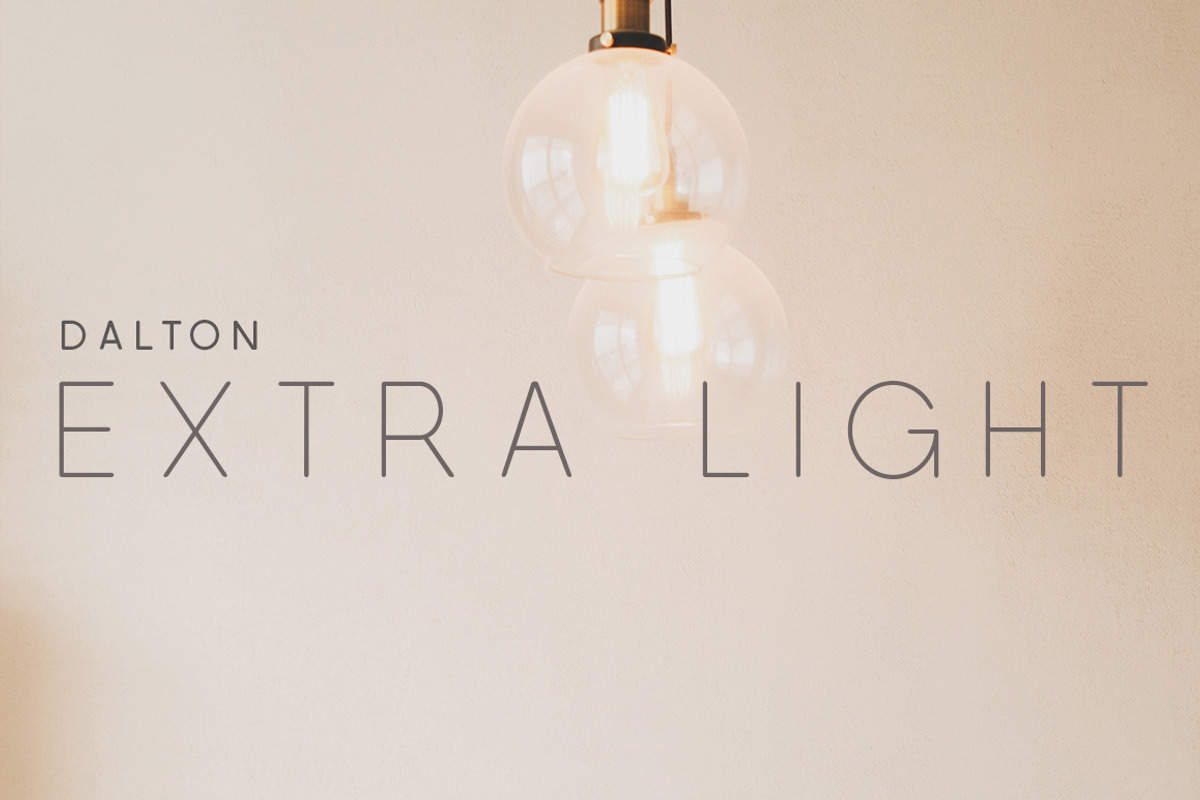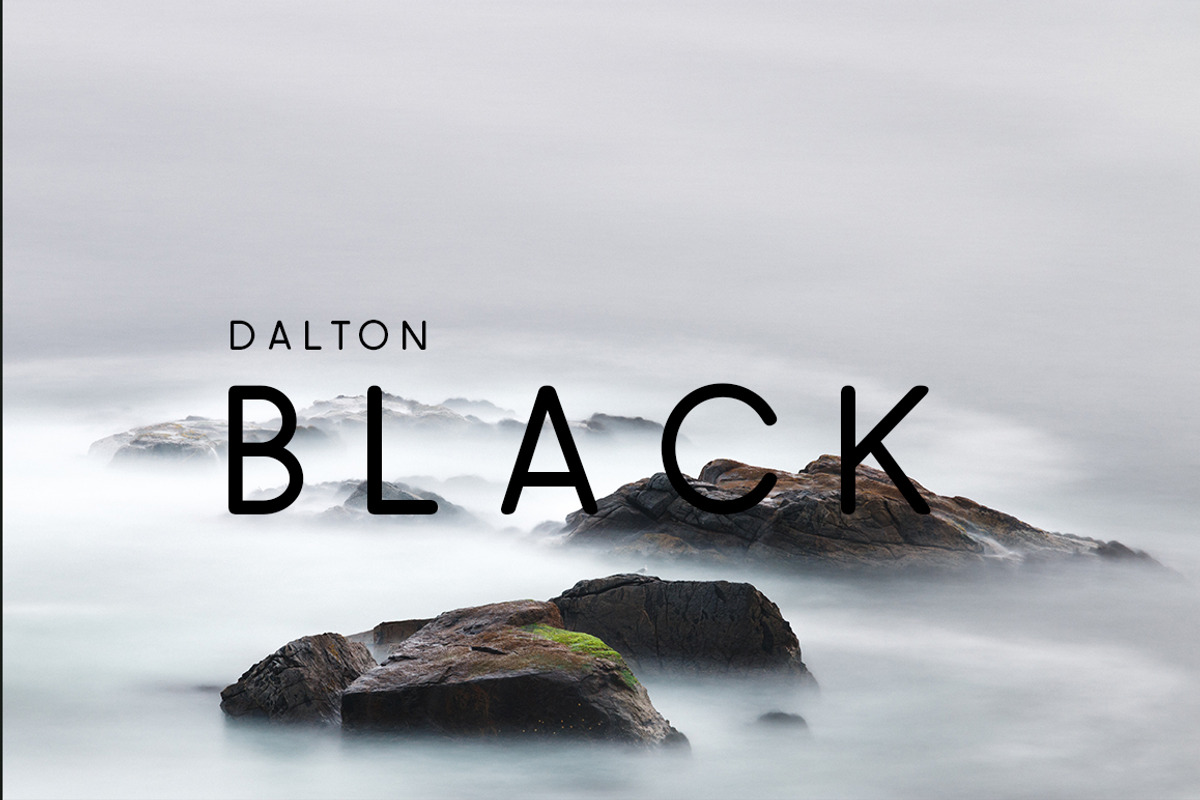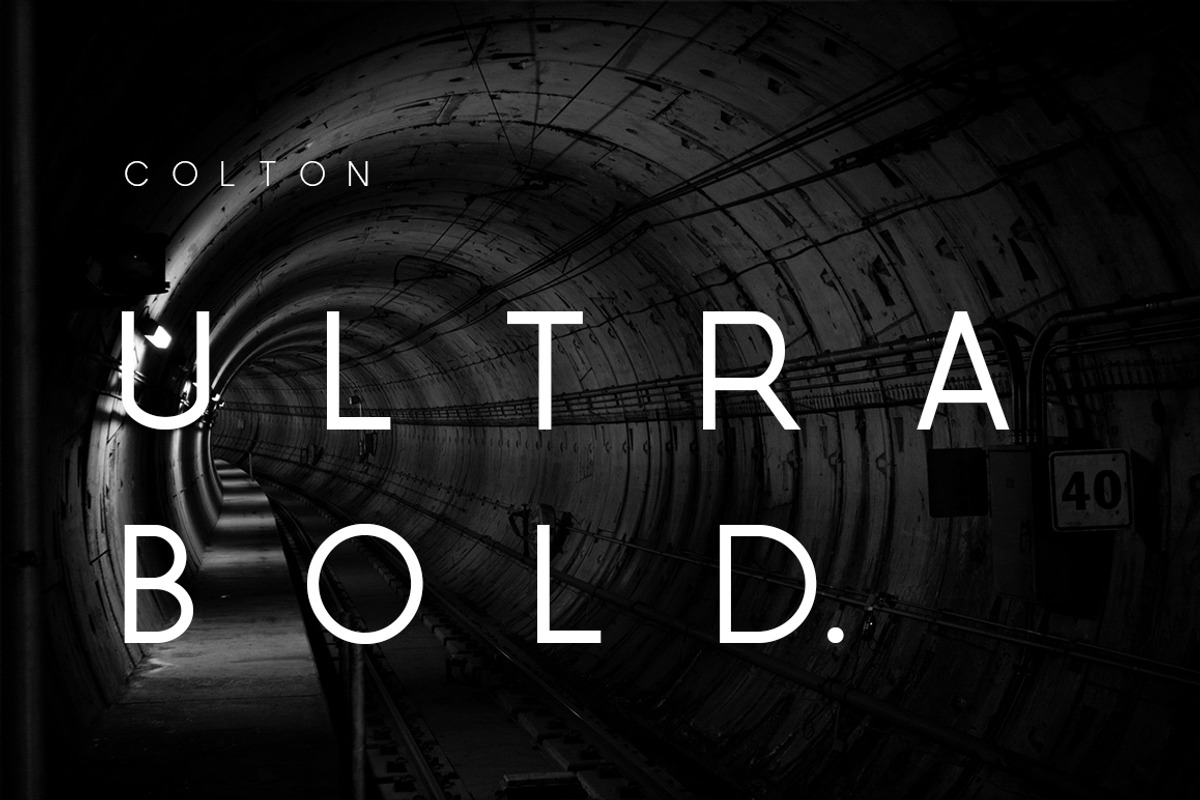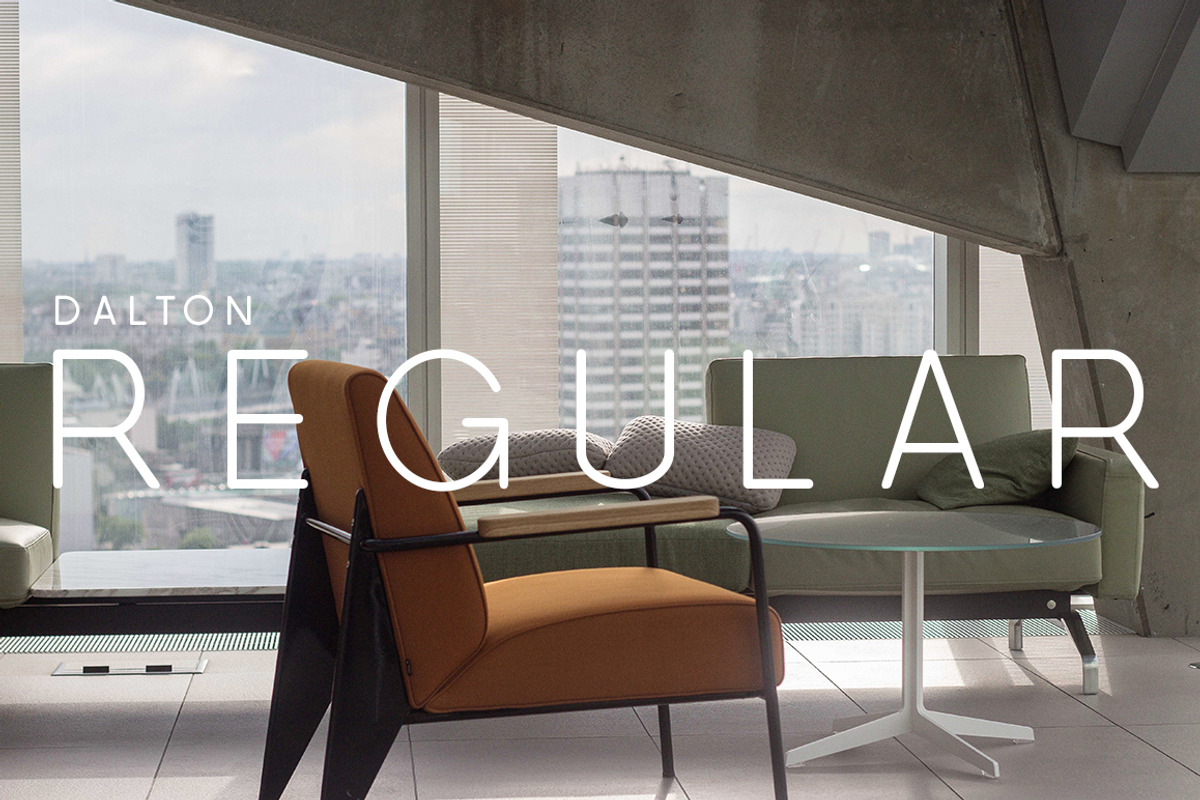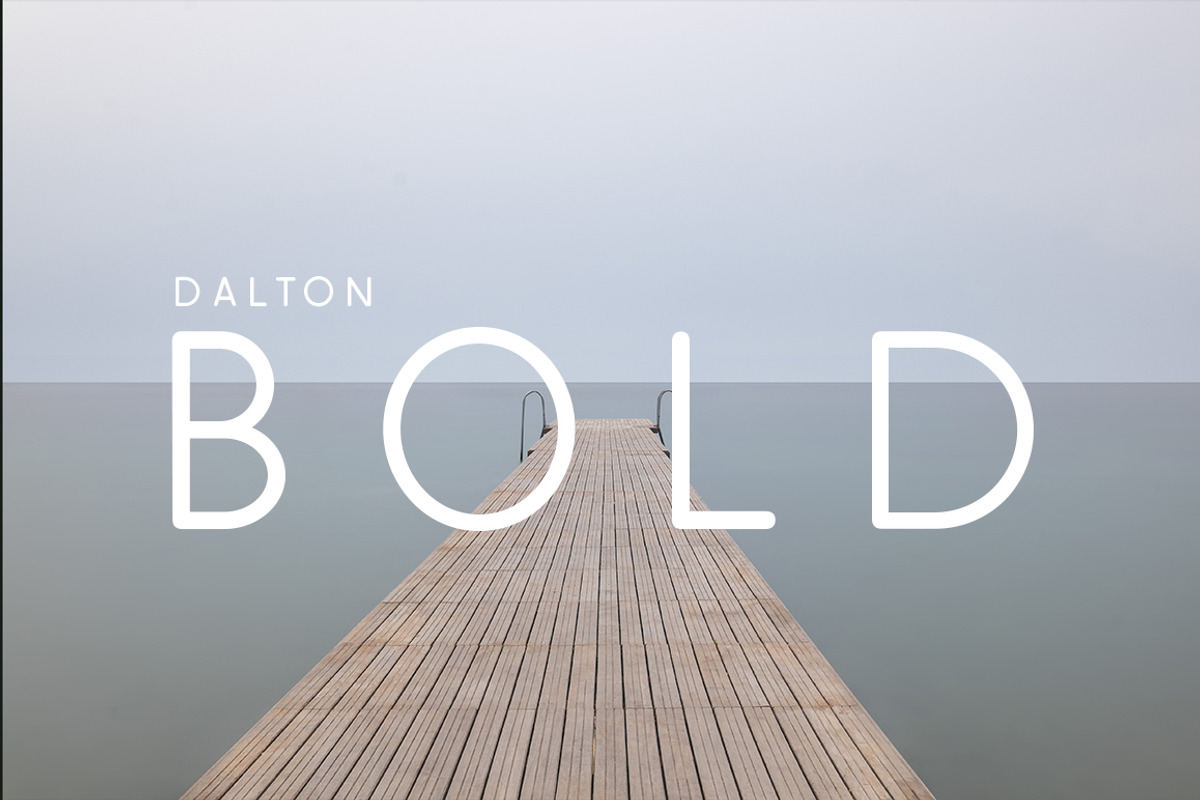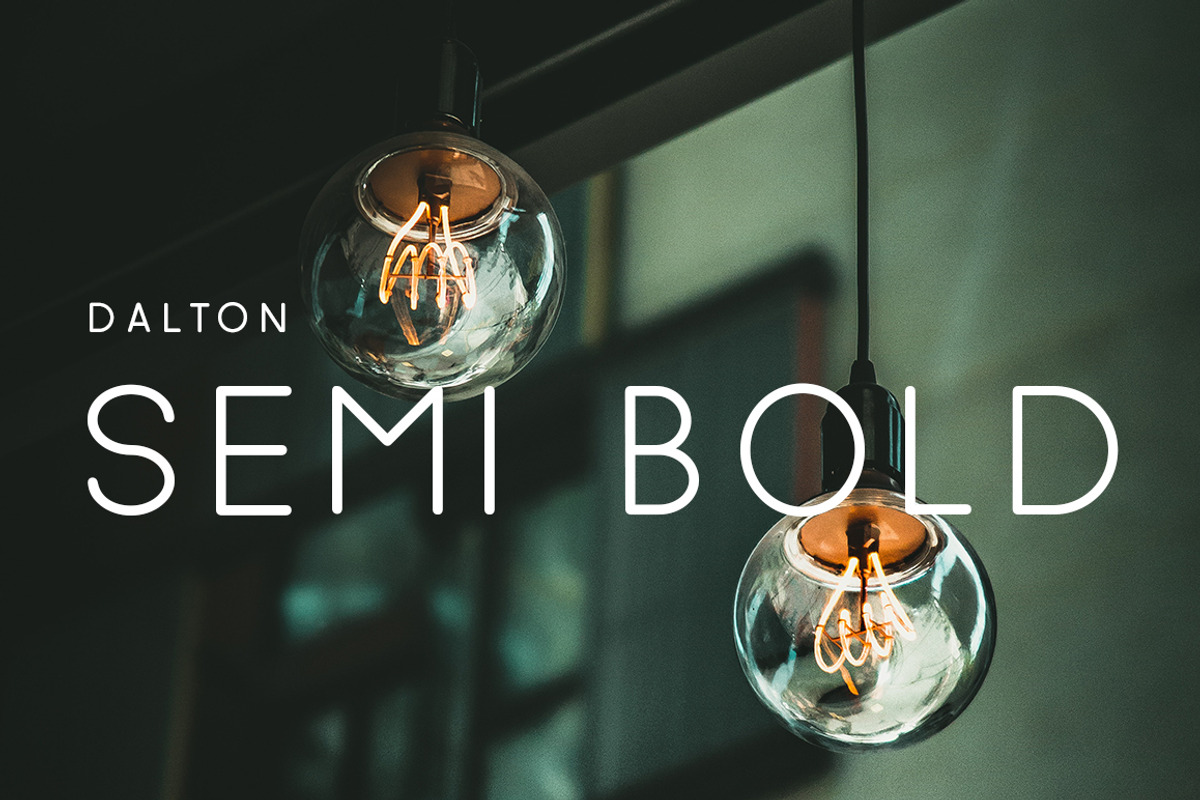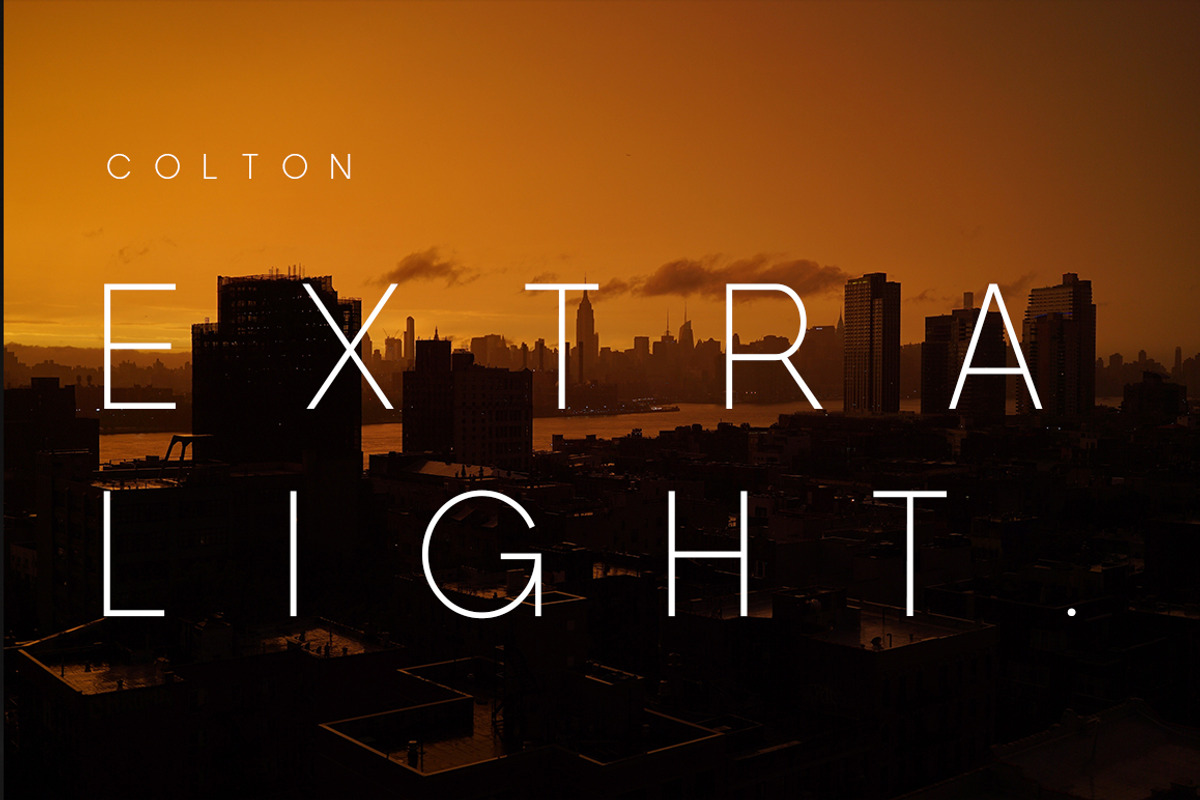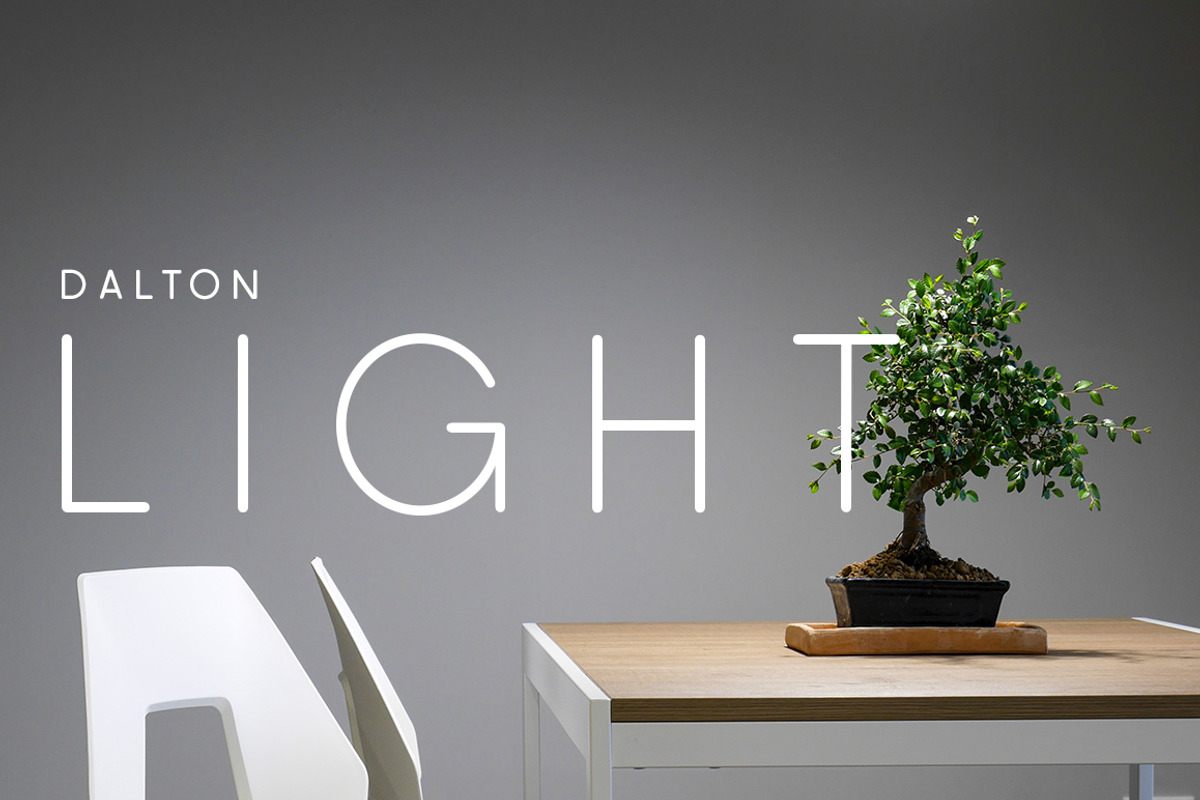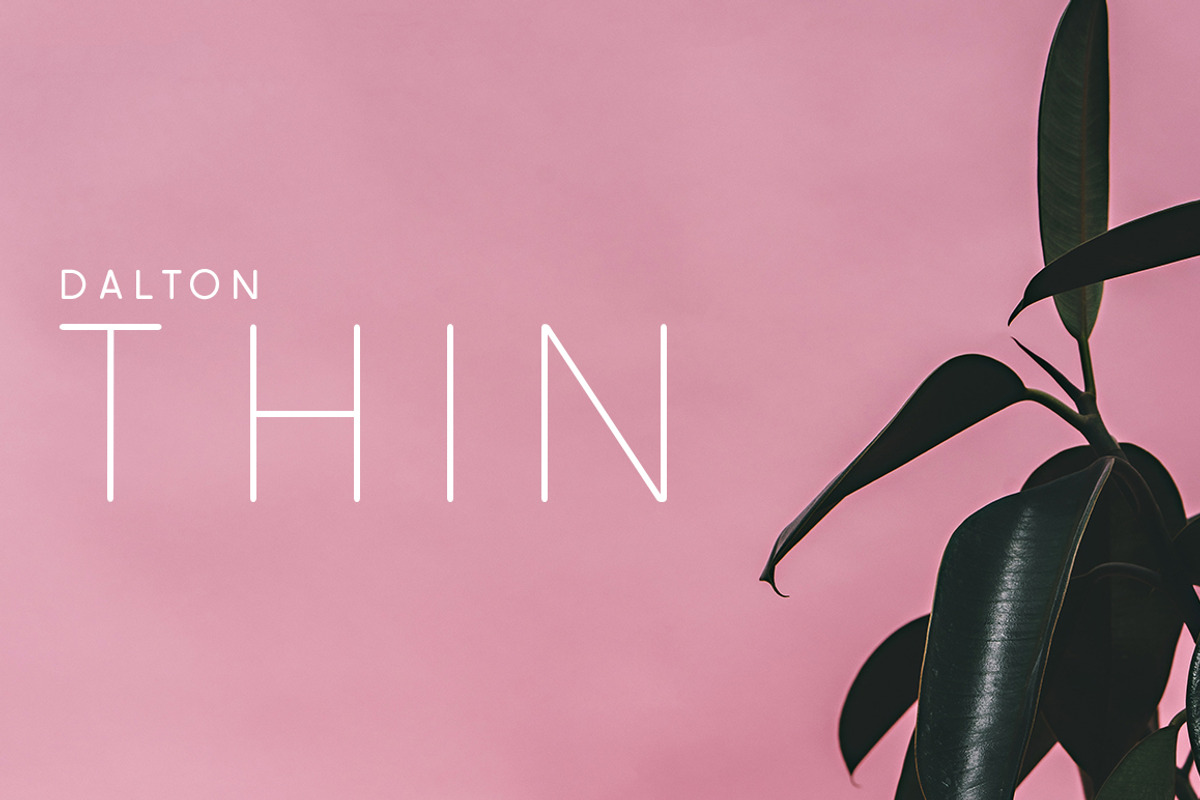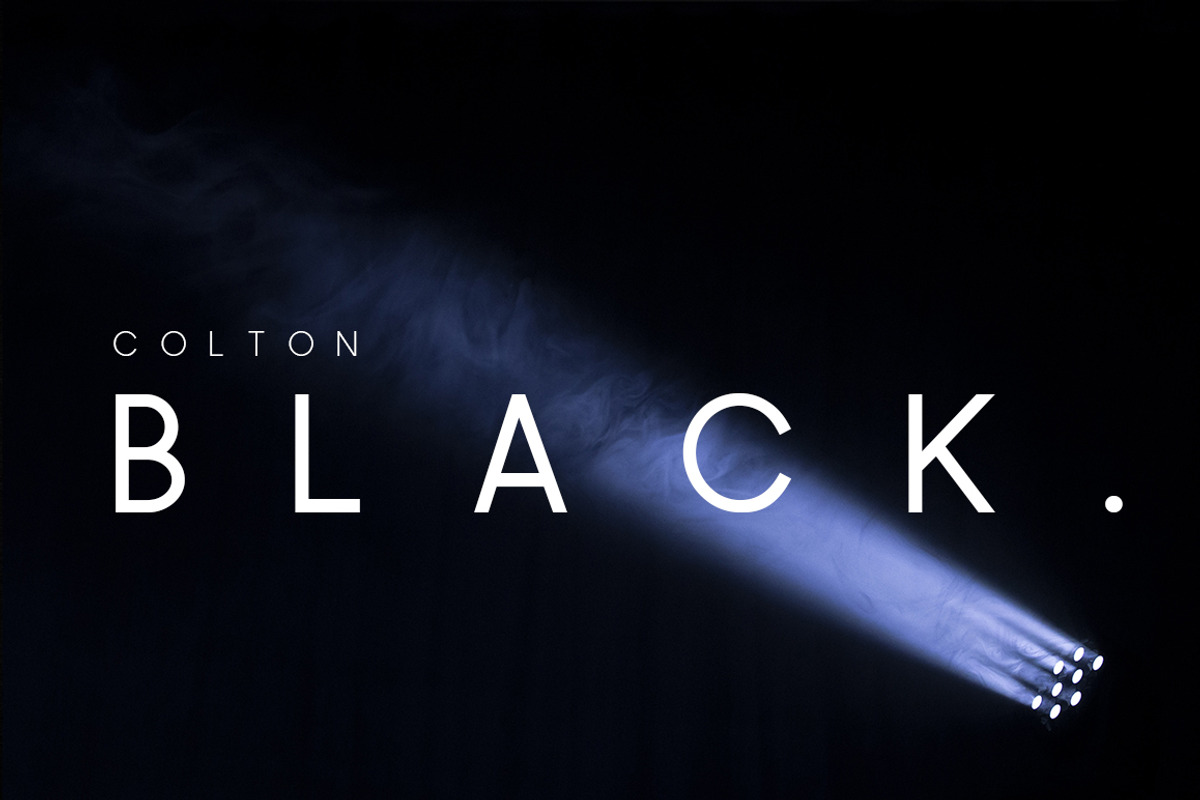
The Sleek Font Bundle
Included are 2 font families - Colton & Dalton
Colton
A distinguished sans serif, with refined lines, juxtaposed with graceful rounding. Colton is the perfect font for logotypes, signage & branding for hospitality, food & drink, apparel, and so much more. Its timeless and clean style makes it perfect for an array of projects.
Dalton
Dalton is the softer brother of the Colton Font Family, yet it retains its sleek precision and contemporary finish. It stands alone as an impressive font, enabling you to cultivate stand out and professional designs.
Each font family is huge including a grand total of 18 fonts per family (over 3000 individual glyphs). These fonts compliment each other perfectly in order to create modern, fresh and unique designs - suitable for logos, signage, editorial, branding, packaging and much more.
- A mega total of 36 striking fonts, adding all the versatility and style you need
- Italics included
- Numbers and punctuation included
- Optimized kerning for aesthetic and highly readable texts